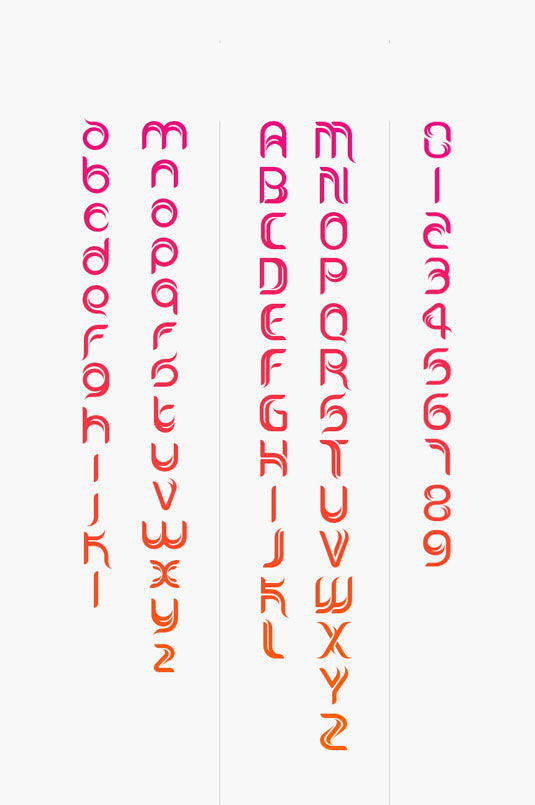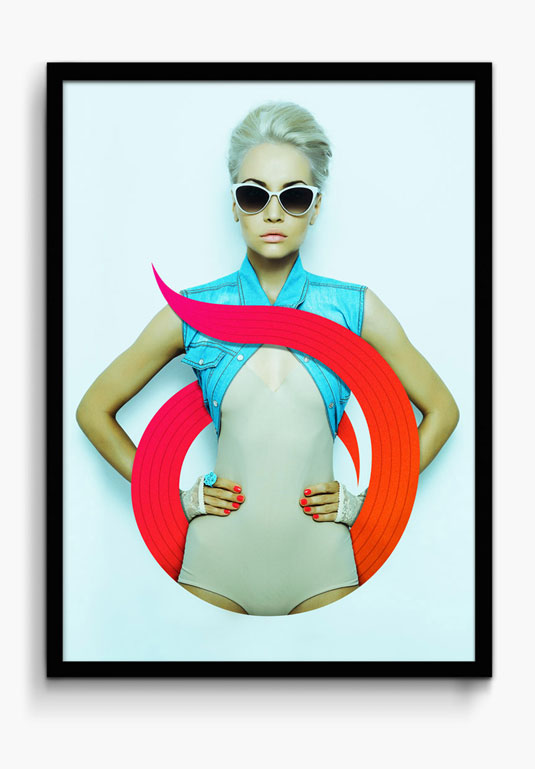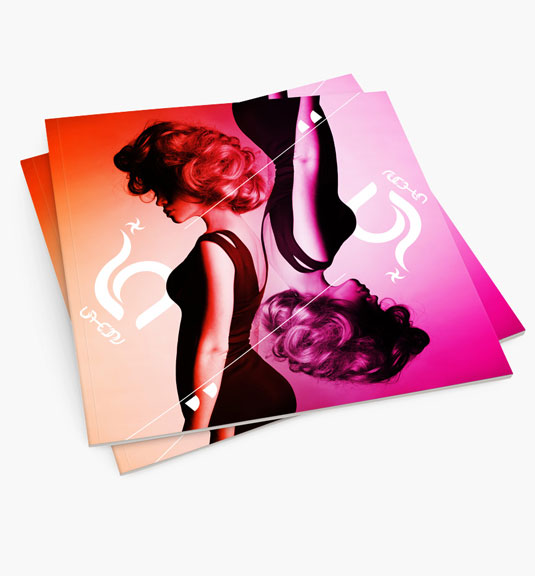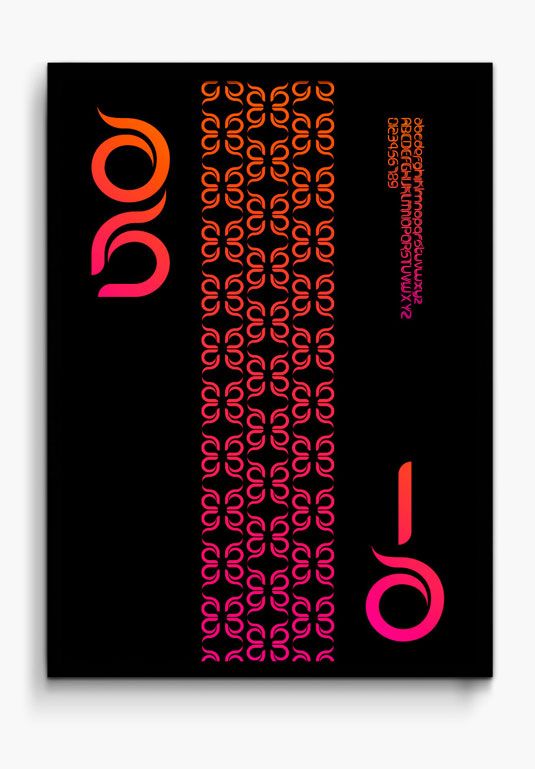
Font of the day: Asia
Every day we showcase the best fonts on the web. Today it's Asia from Superfried.
Asia from Superfried
Today's typeface of choice is Asia from the team at London-based graphic design studio Superfried.
"Asia is an ornate, display typeface inspired by trips throughout the continent," says Superfried's Mark Richardson. "Its distinct, bold style has been designed to evoke the curves and beautiful intricacy of Asian typographic characters and patterns."